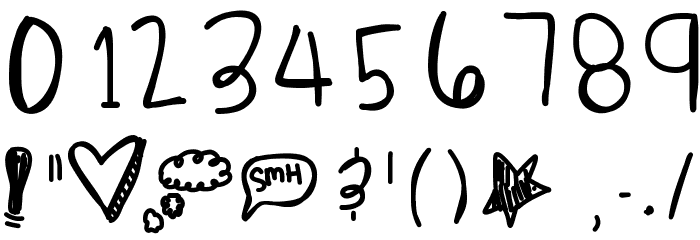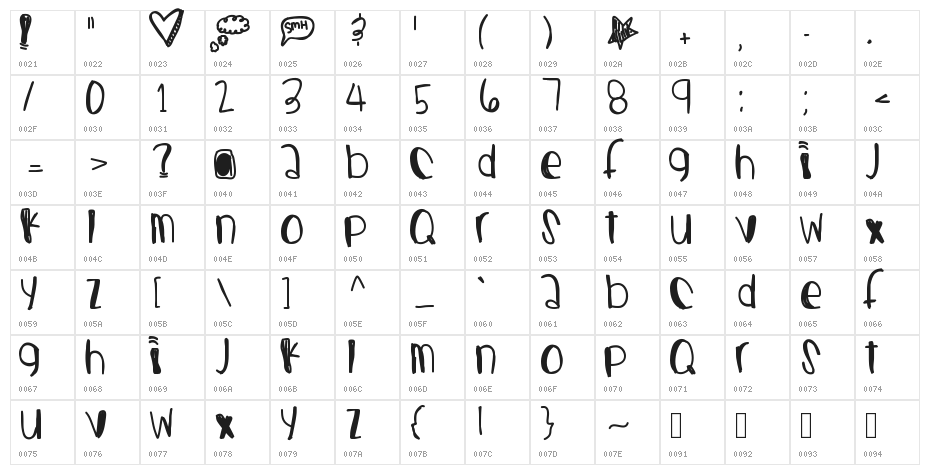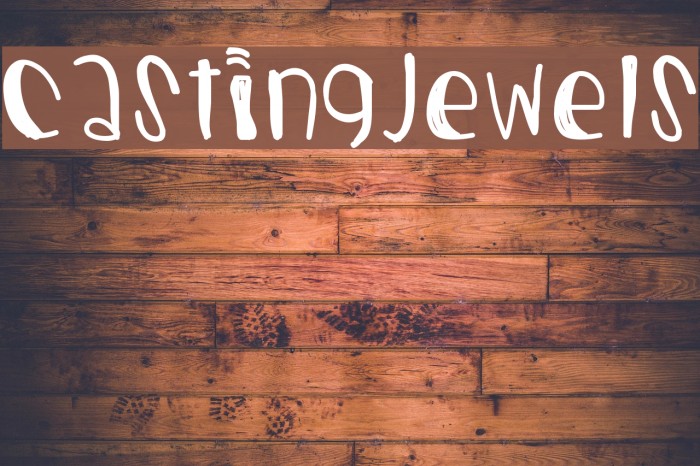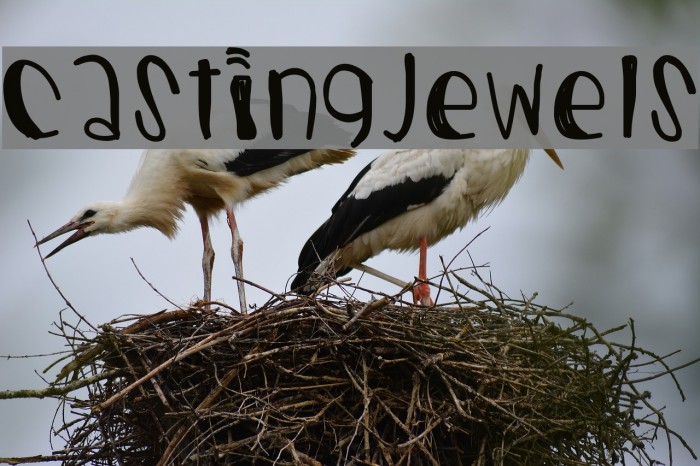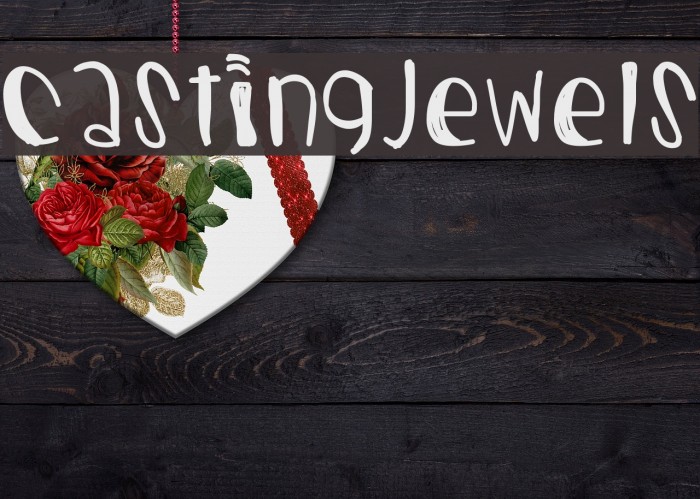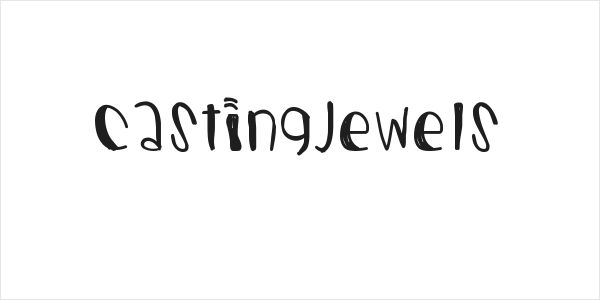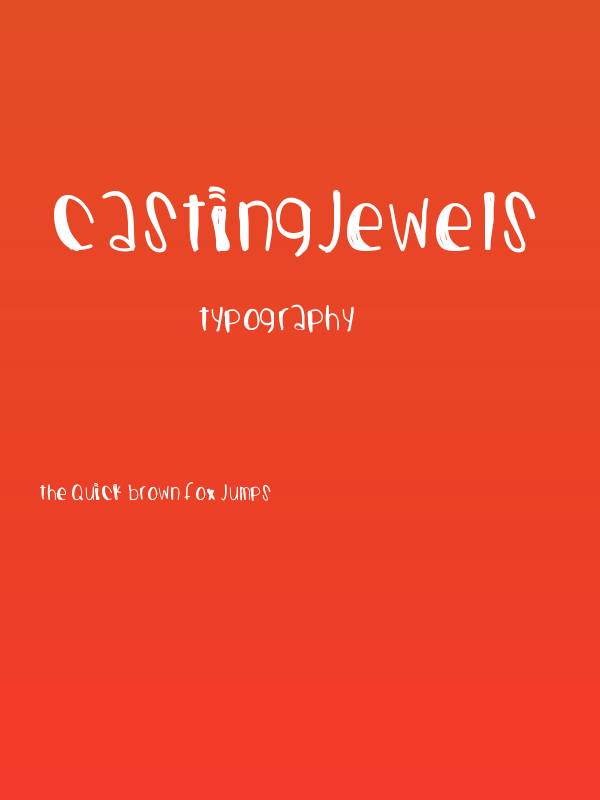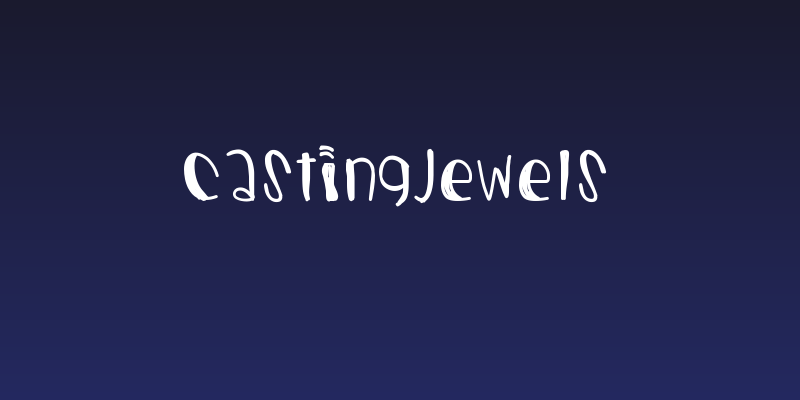
CastingJewels Font
CastingJewels Description
This font exhibits a playful and whimsical handwritten style, characterized by its irregular and quirky letterforms. The strokes are uneven, giving it a casual and informal appearance. Each character has a unique personality, with varying heights and widths that contribute to its dynamic look. The font includes both uppercase and lowercase letters, numbers, and a selection of special characters, each maintaining the same playful aesthetic. The overall design is reminiscent of doodles or sketches, making it ideal for projects that require a fun and approachable feel.
| Proposed Projects | Ideal for children's books, greeting cards, playful branding, and creative social media graphics. |